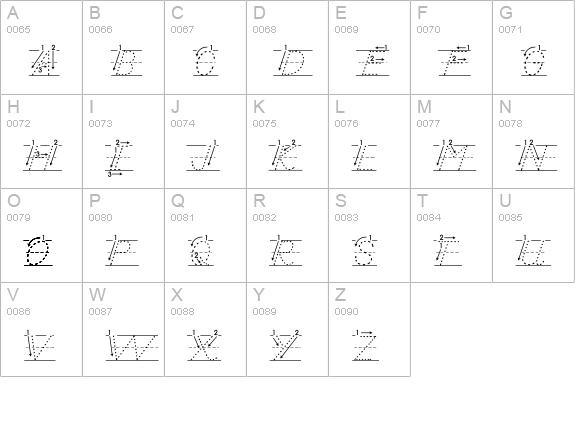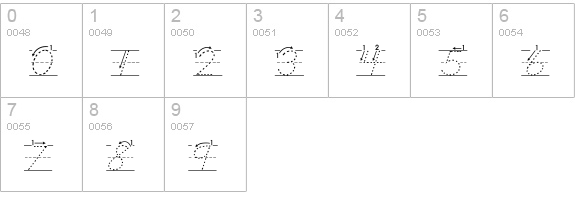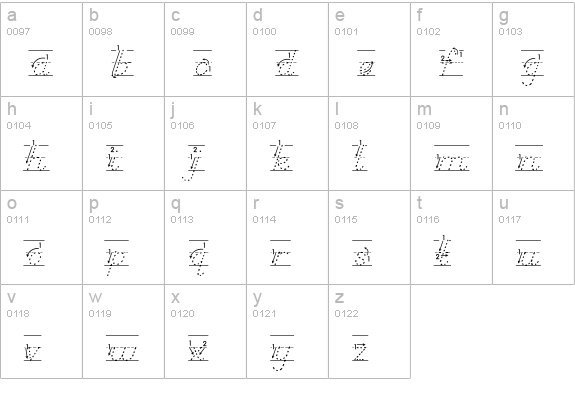
AbcDNManusArrowDotted Font Details
Introducing AbcDNManusArrowDotted font, a unique and stylish typeface that is perfect for adding a touch of creativity to your designs. This font features a combination of arrows and dotted patterns, giving it a modern and dynamic look. Whether you're working on a poster, logo, or any other design project, AbcDNManusArrowDotted font is sure to make a statement. The best part? This font is completely free to download at FontsMarket.com. Simply visit the website and get your hands on this eye-catching typeface to enhance your projects. With its intricate details and versatile style, AbcDNManusArrowDotted font is a must-have addition to your font collection. Download it today and start designing with flair!